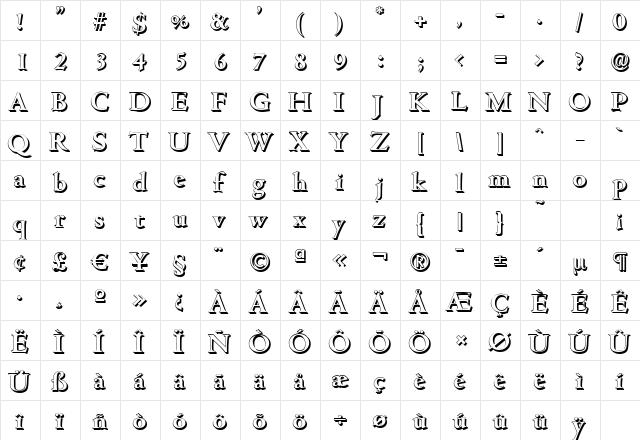
CambridgeShadow Bold Font Preview
CambridgeShadow Bold
Design Context for CambridgeShadow Typeface
CambridgeShadow is built around its visual character rather than neutral utility — its distinctive forms are designed to make an impression at display sizes. Its bold stroke weight gives it real presence on the page.
Font Pairing: Pair with a clean neutral sans-serif for body copy to let CambridgeShadow's character lead without overwhelming the composition.
Pro Tip: Treat CambridgeShadow as the centrepiece of your typographic hierarchy. One strong heading set in a decorative face can carry an entire layout.